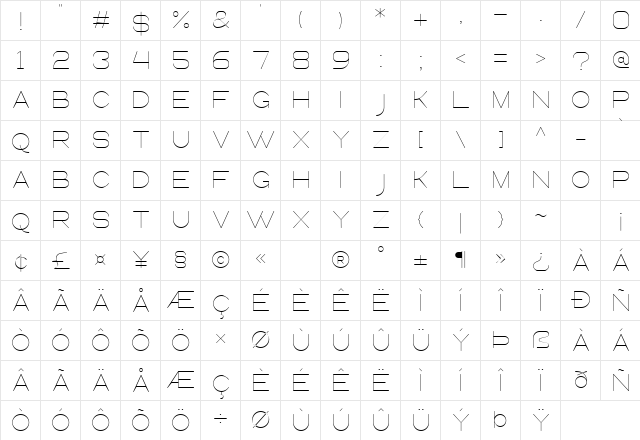
Queental Light
| Designer | StringLabs |
Design Context for Queental Typeface
Queental is a composed and adaptable typeface that performs quietly and consistently across a wide range of design contexts. Its slender proportions lend an understated elegance to any composition.